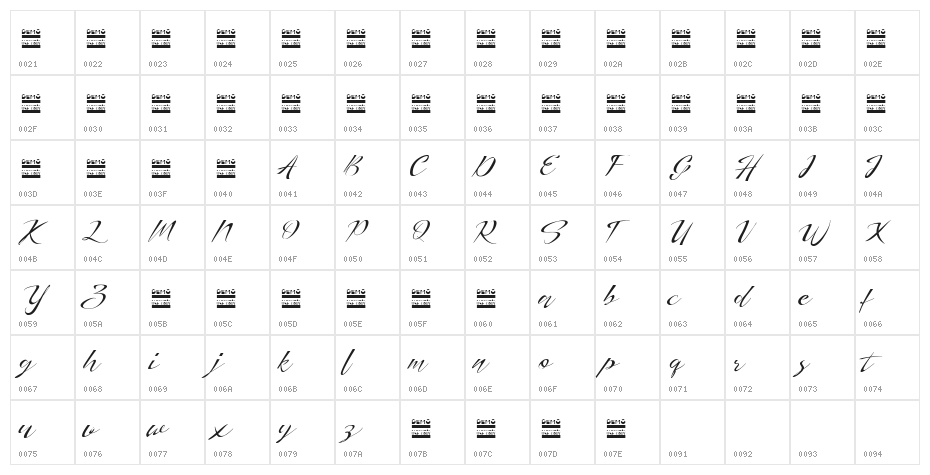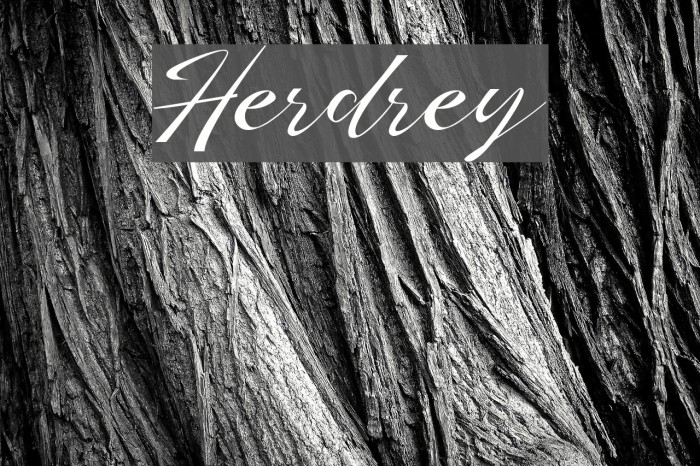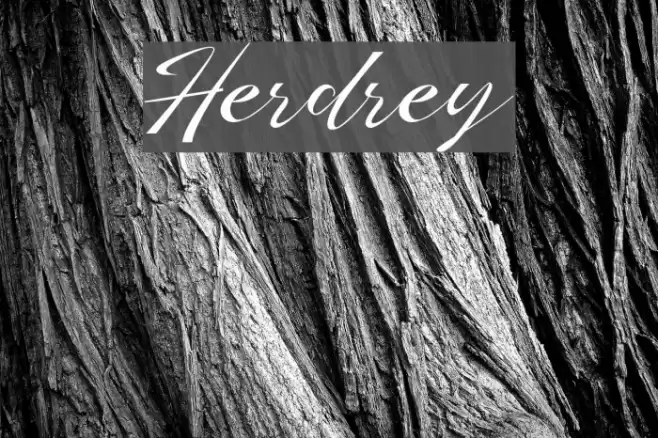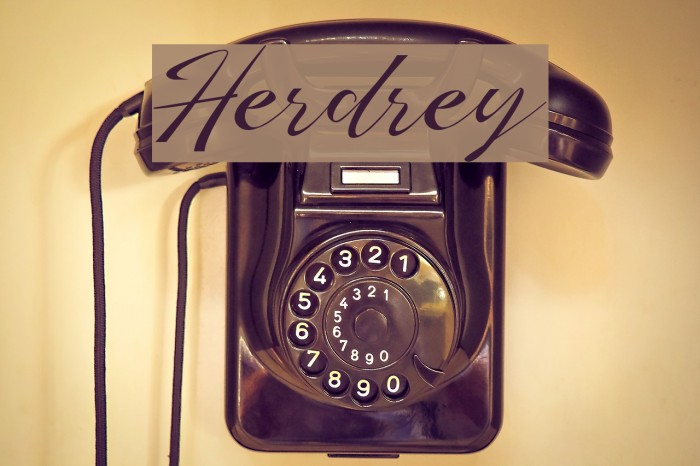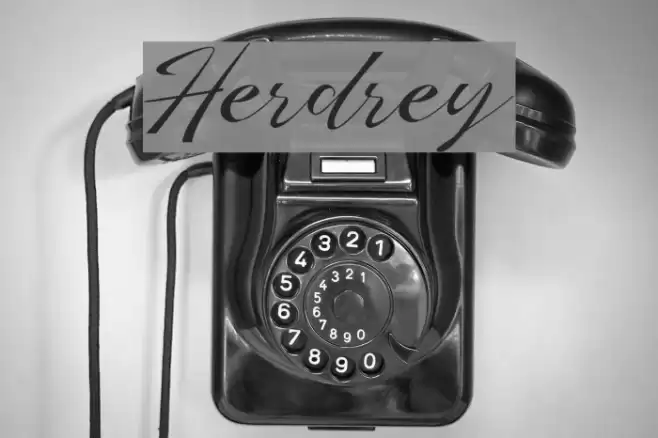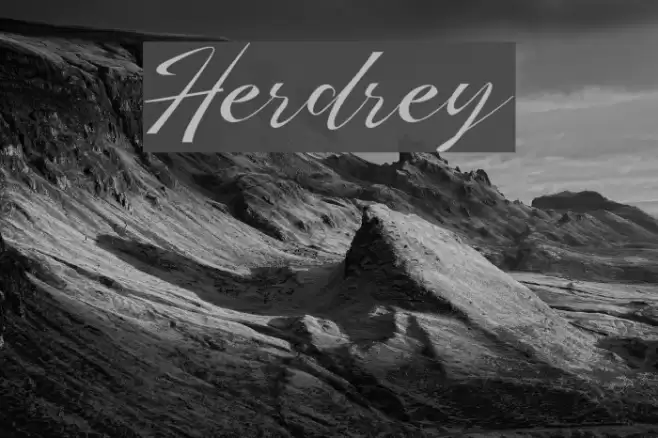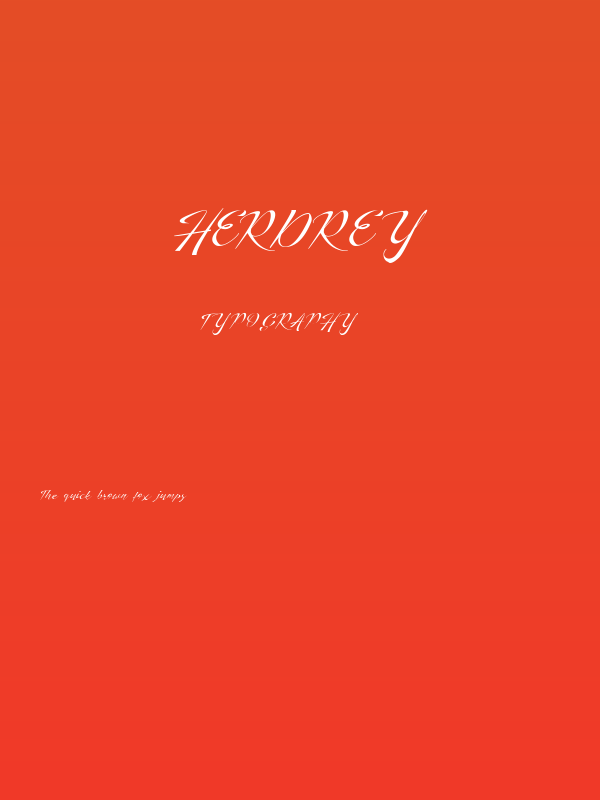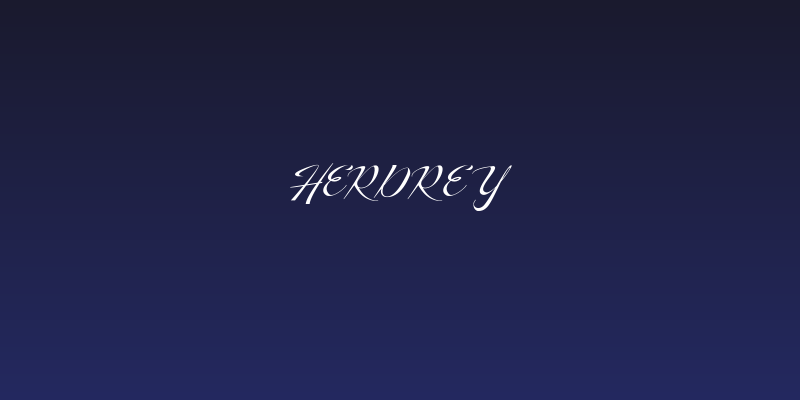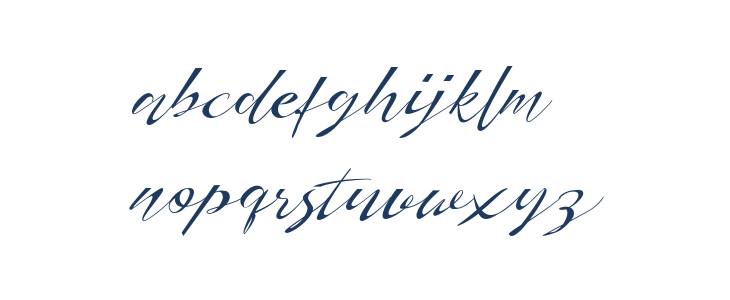
Herdrey Font
Herdrey Description
This font features an elegant and flowing script style, characterized by its smooth, cursive strokes and graceful curves. The uppercase letters are tall and slightly slanted, giving a sense of movement and sophistication. The lowercase letters maintain a consistent style, with some letters featuring distinctive loops and flourishes that enhance its decorative appeal. The overall design is reminiscent of traditional calligraphy, making it suitable for formal and artistic applications. The font's fluidity and charm make it ideal for projects that require a touch of elegance and refinement.
| Proposed Projects | Wedding invitations, greeting cards, branding, and logo design. |